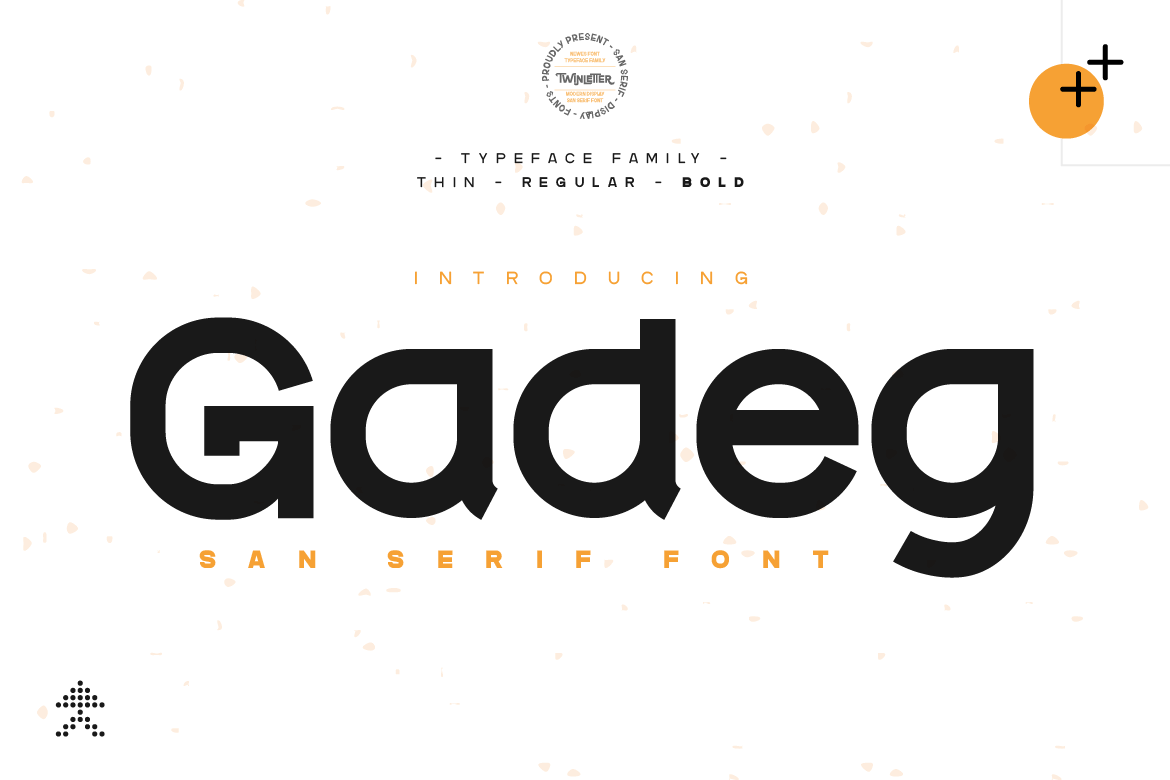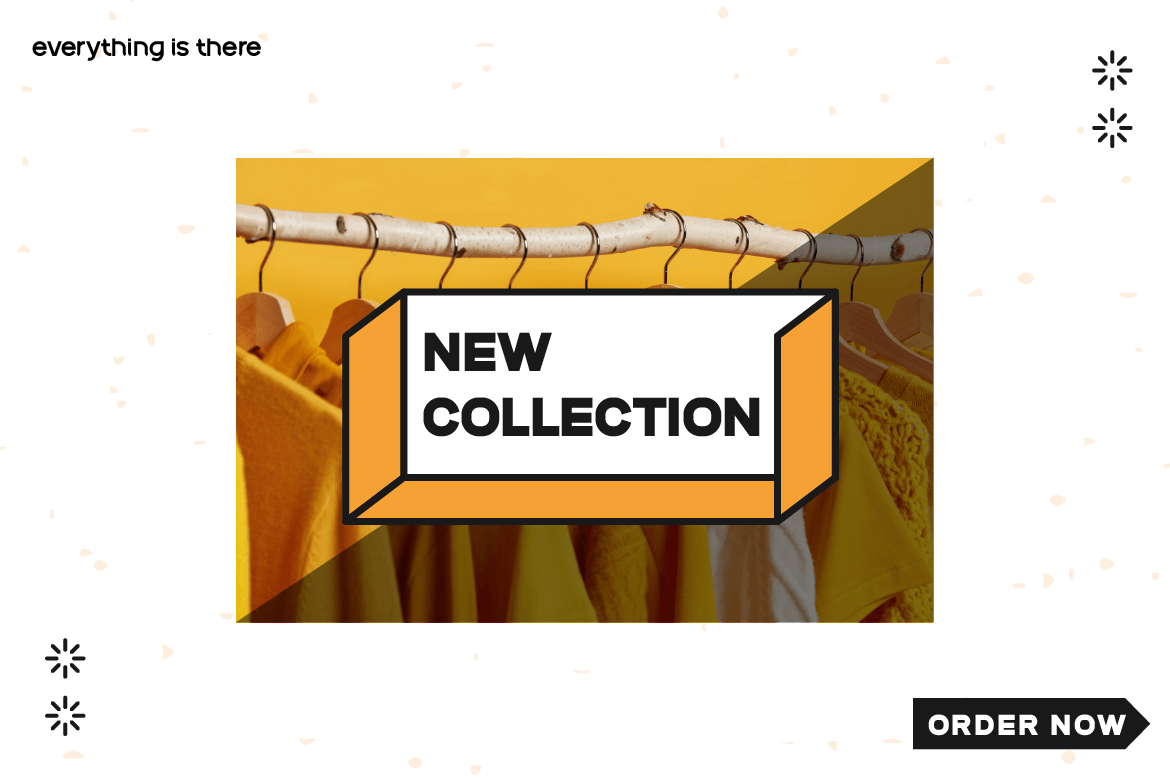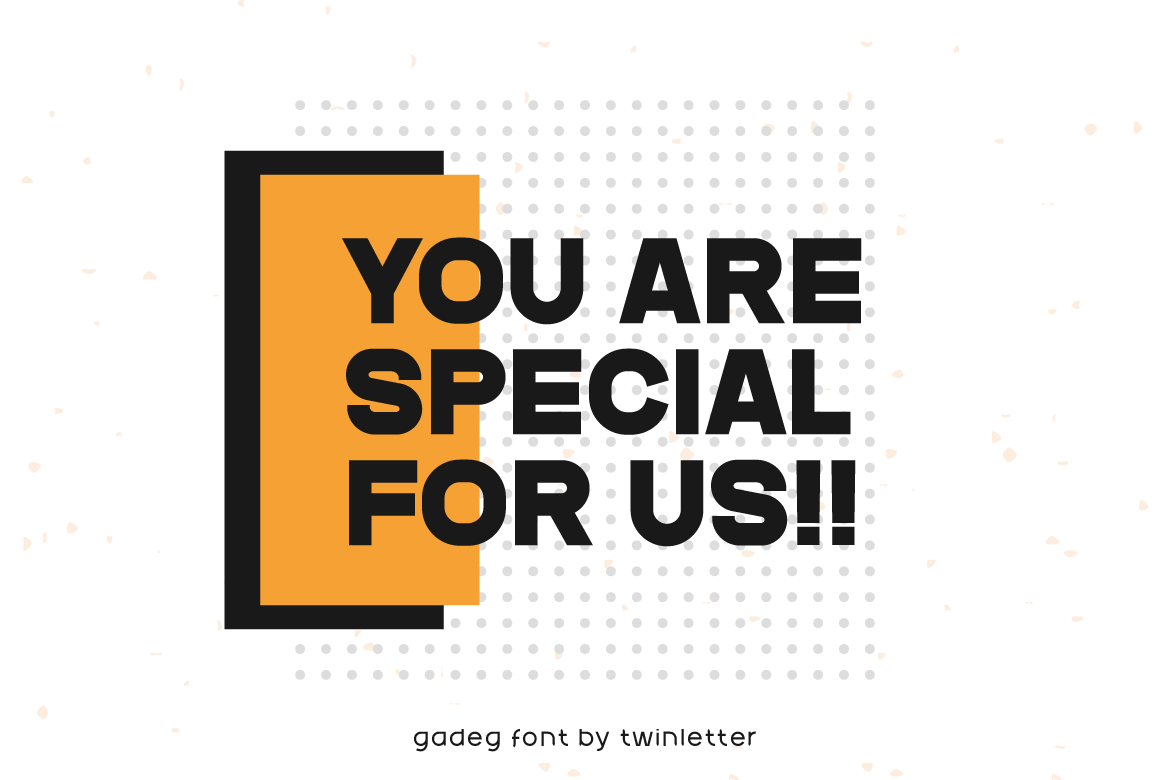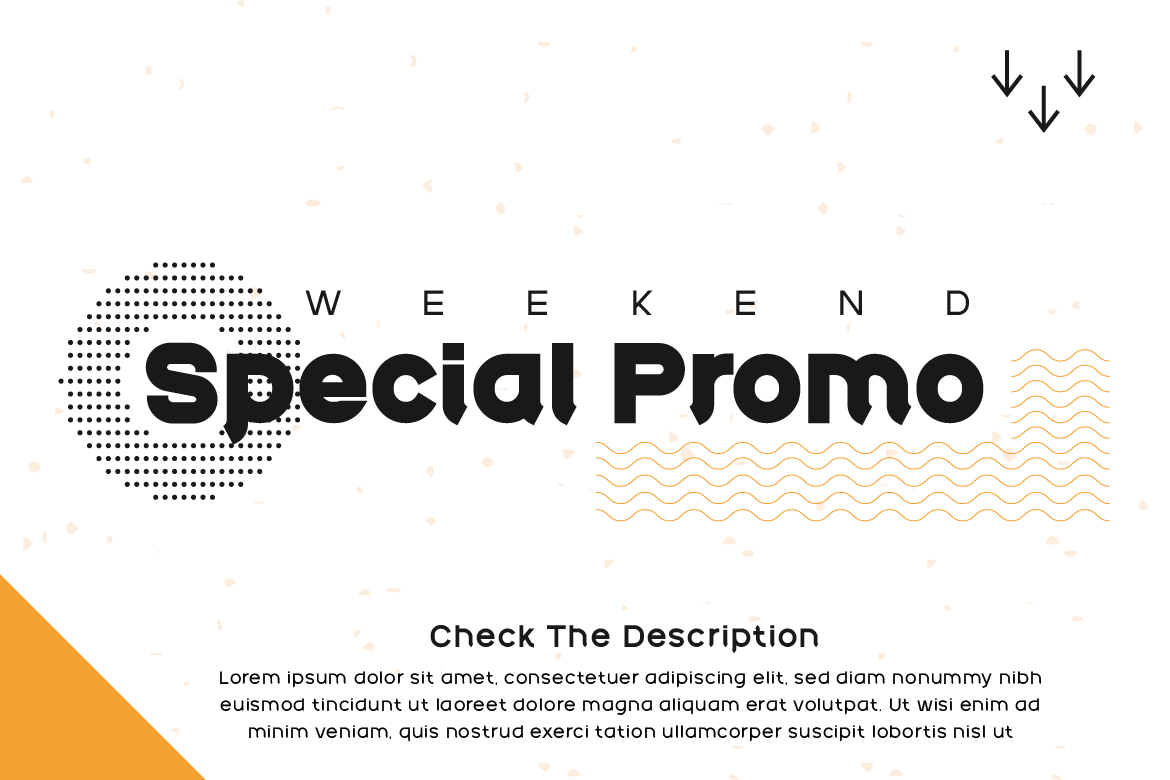
Gadeg
Introducing the Gadeg sanserif font.
special font with a unique and special shape adopts a modern minimalist style with a simple and elegant impression.
We designed this san serif family font by paying attention to the combination of each letter to create a beautiful impression and appearance, making it easier to answer your needs, both formal and non-formal needs.
This font is perfect for a wide variety of design projects, sporting events, branding, banners, posters, movie titles, food and beverage, technology, quotes, clothing, logotypes, and more.
Of course, by using this font your various design projects will be perfect and amazing, because this font comes with a family of fonts, both for titles and subtitles and sentence text, start using our fonts for your amazing projects.